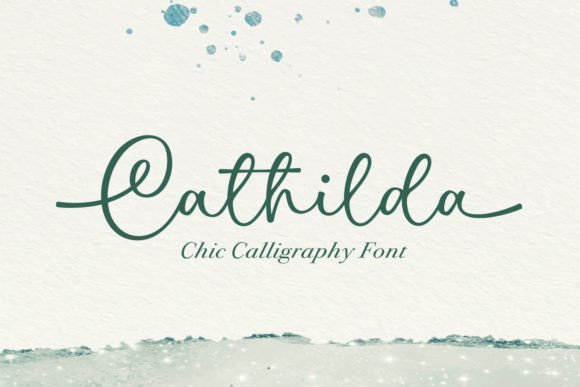
Introduction to Cathilda Font
Cathilda is a chic and charming script font that embodies elegance and sophistication.
With its graceful curves and stylish flourishes, it adds a touch of luxury to any project Perfect for wedding invitations, branding, and packaging designs, Cathilda exudes timeless beauty and class, making every text look exquisite.
Why Choose Cathilda Font?
Cathilda Font offers exceptional quality and versatility, making it a valuable addition to your design toolkit. Whether you’re creating for personal projects or commercial use, Cathilda Font delivers professional results.